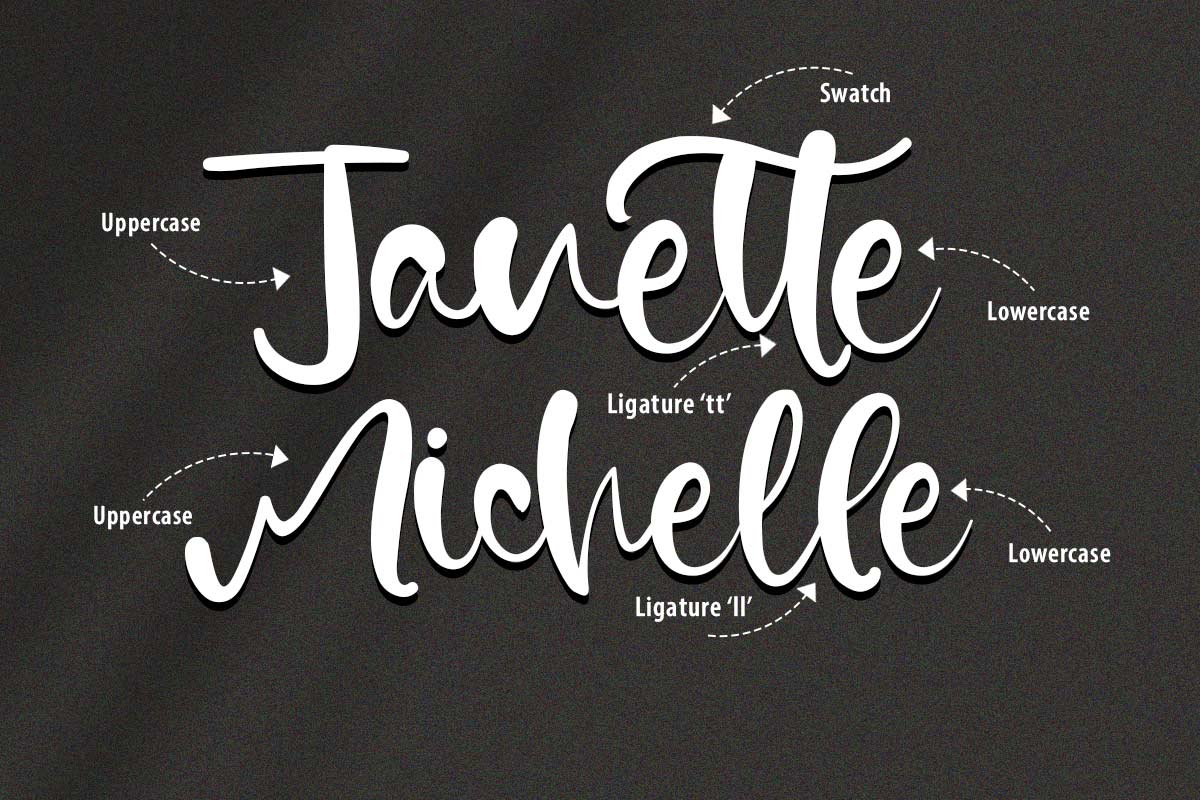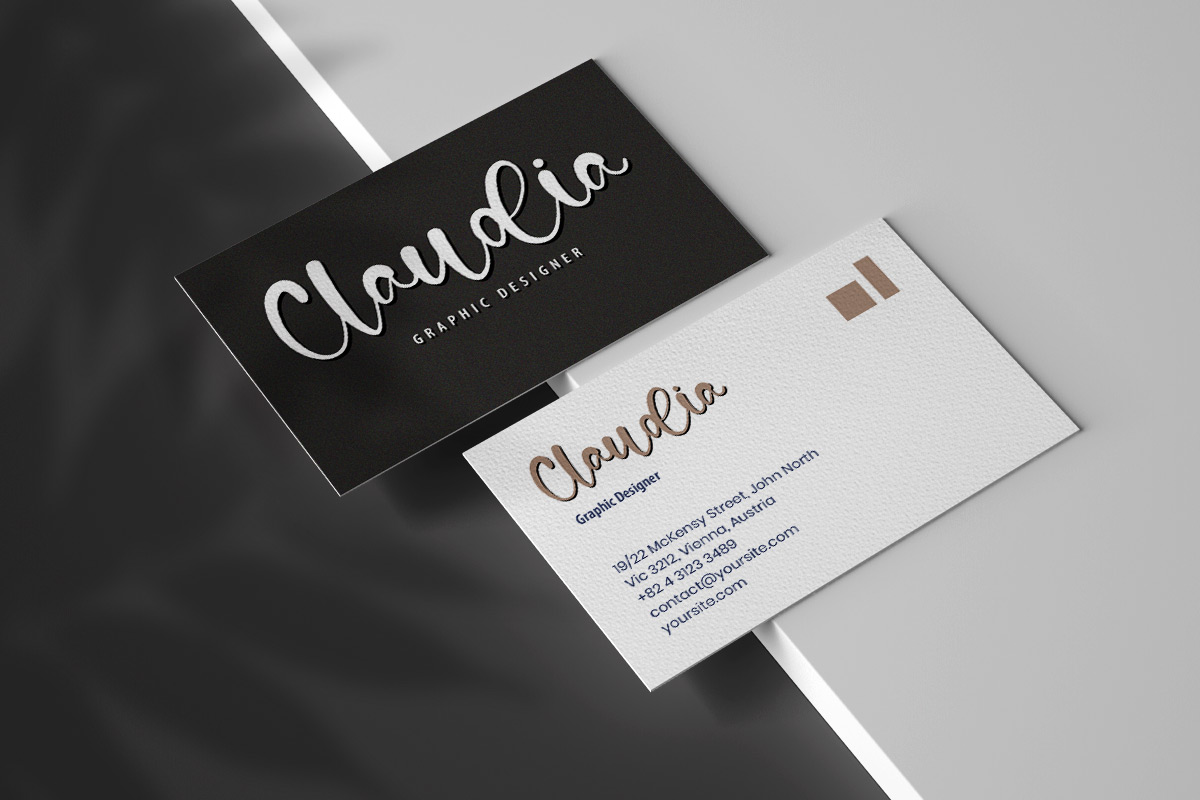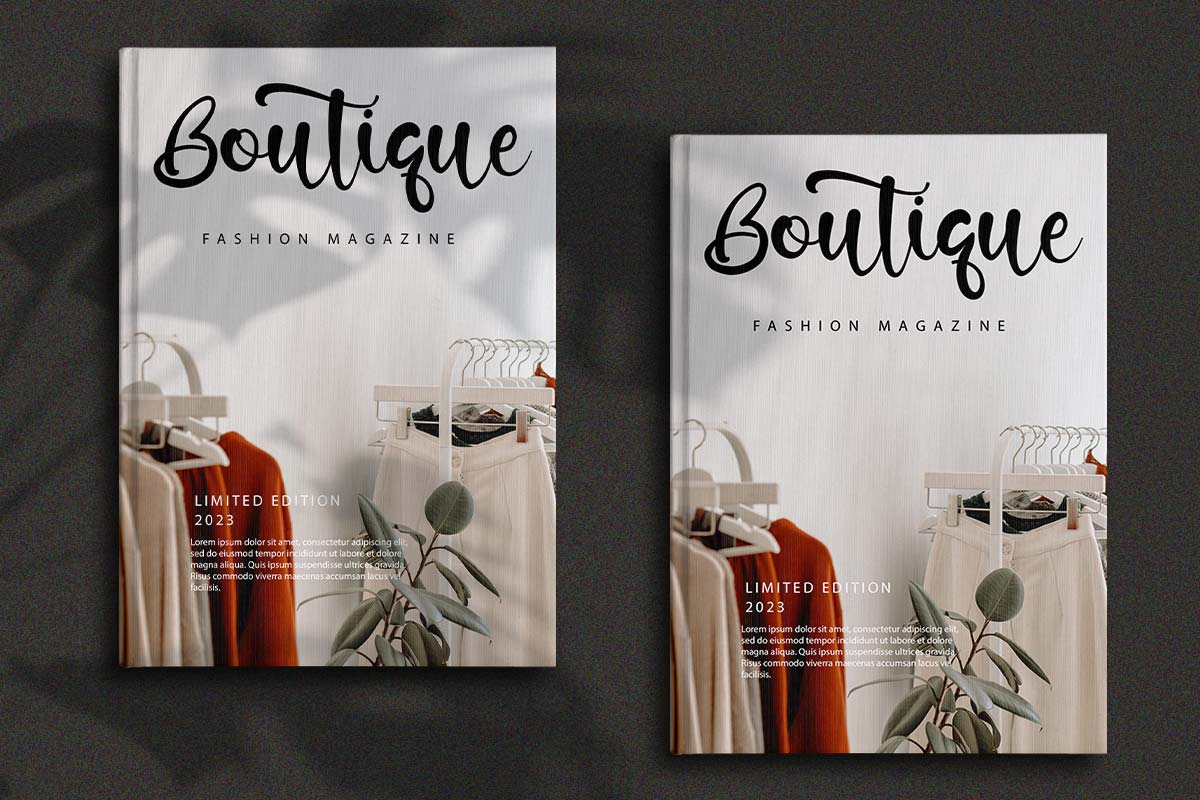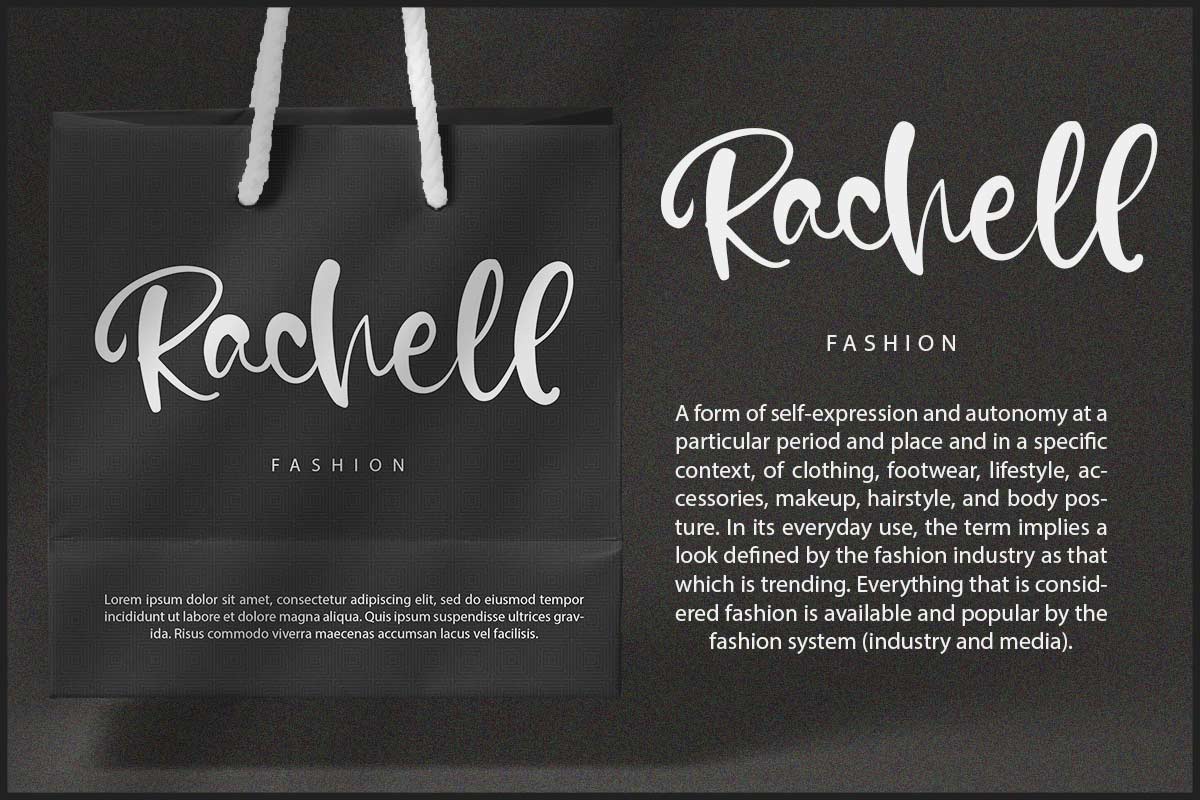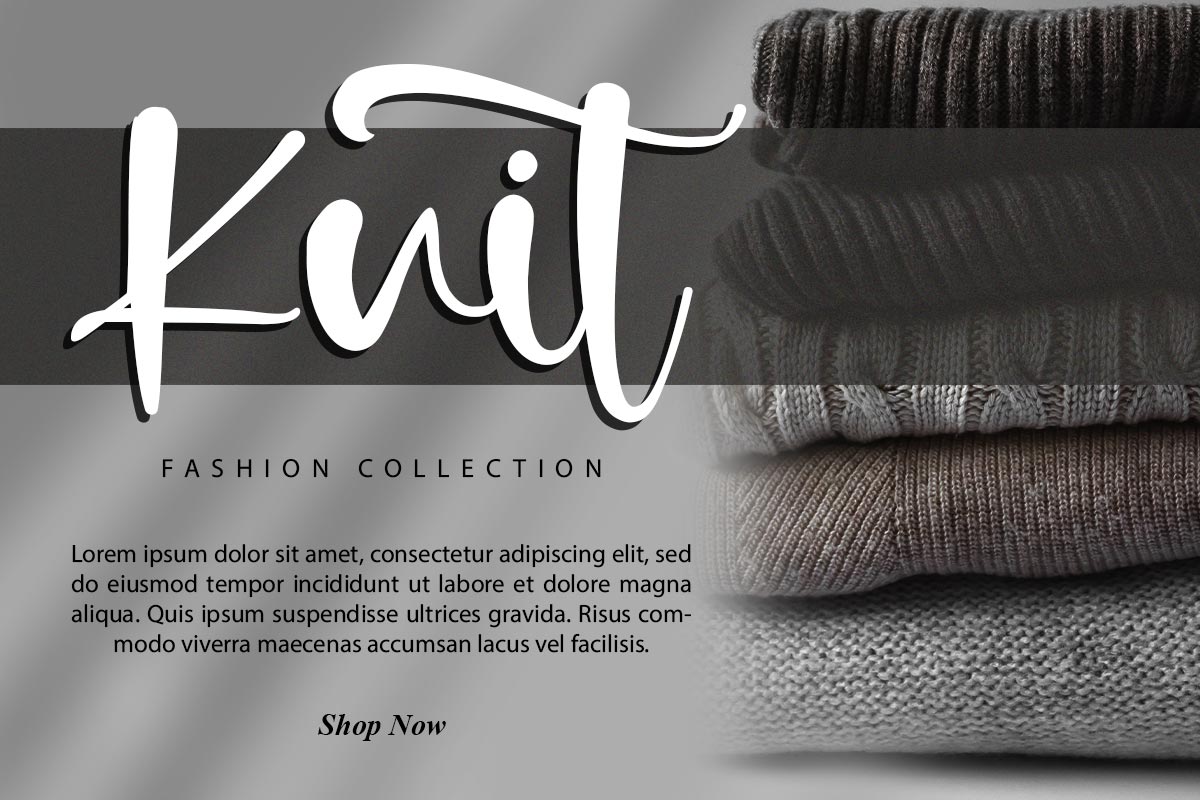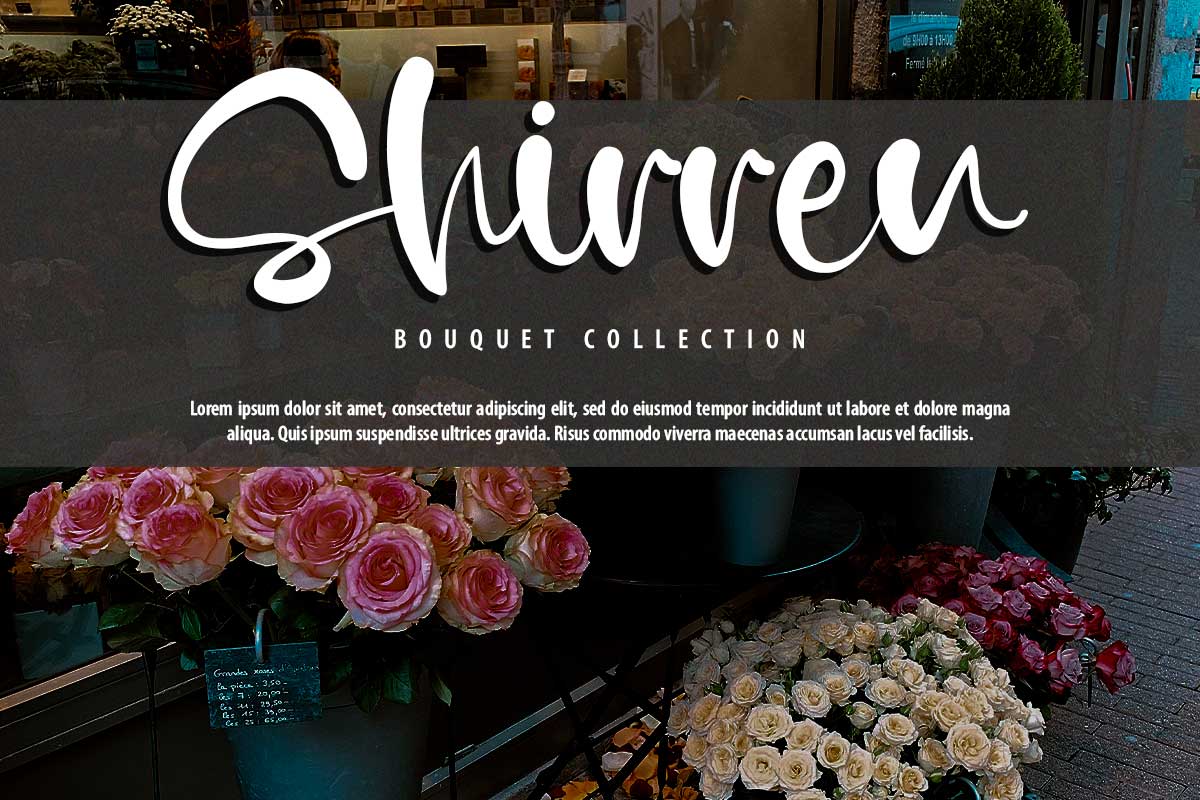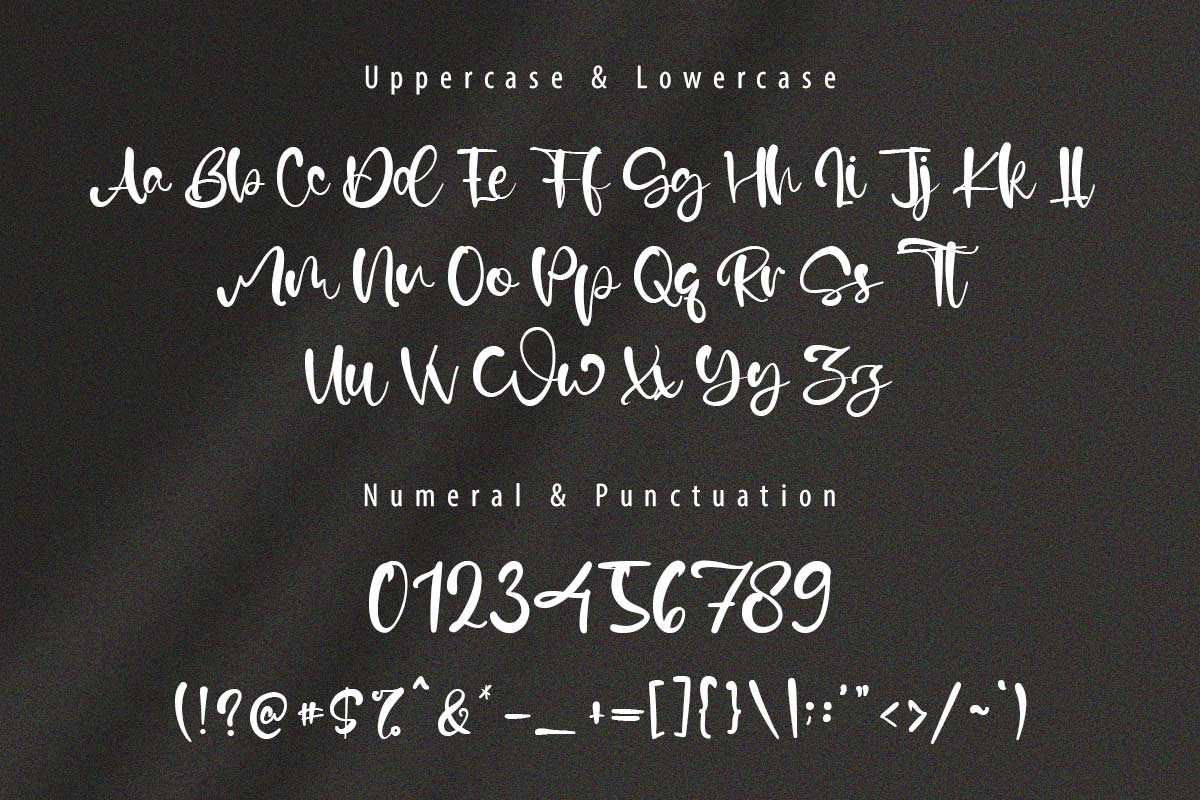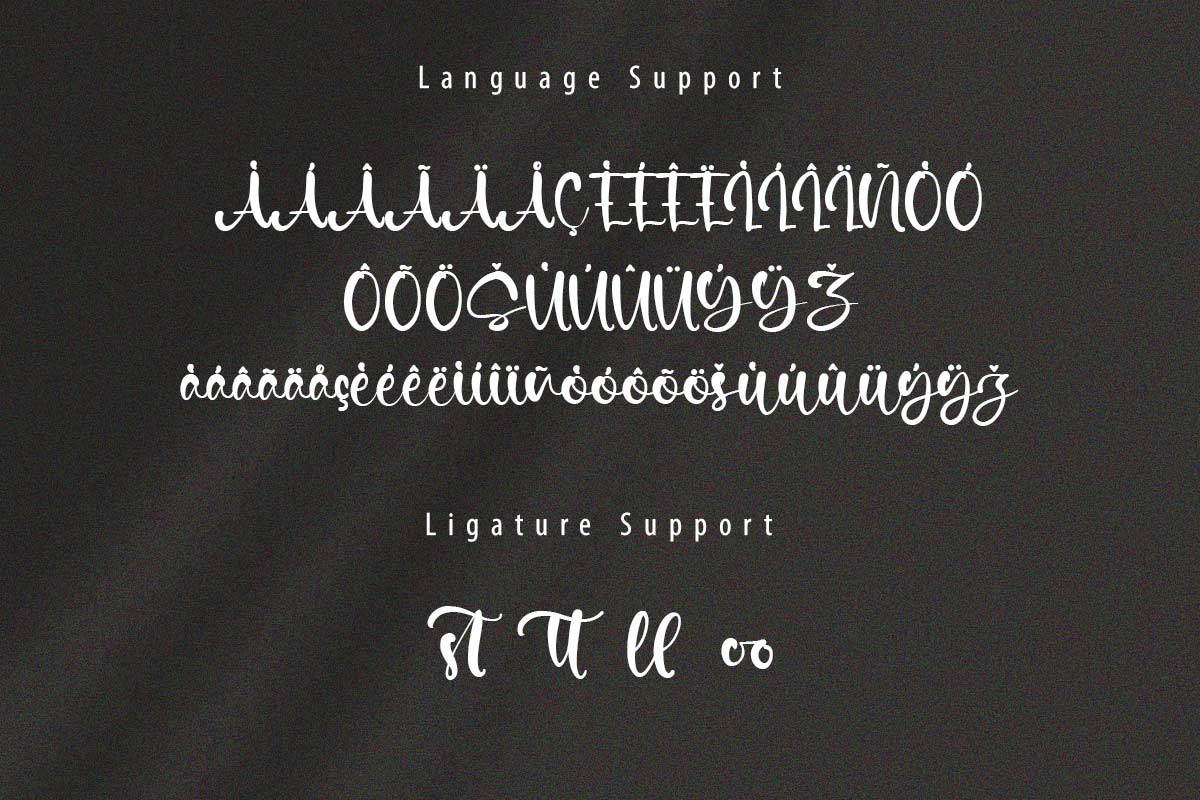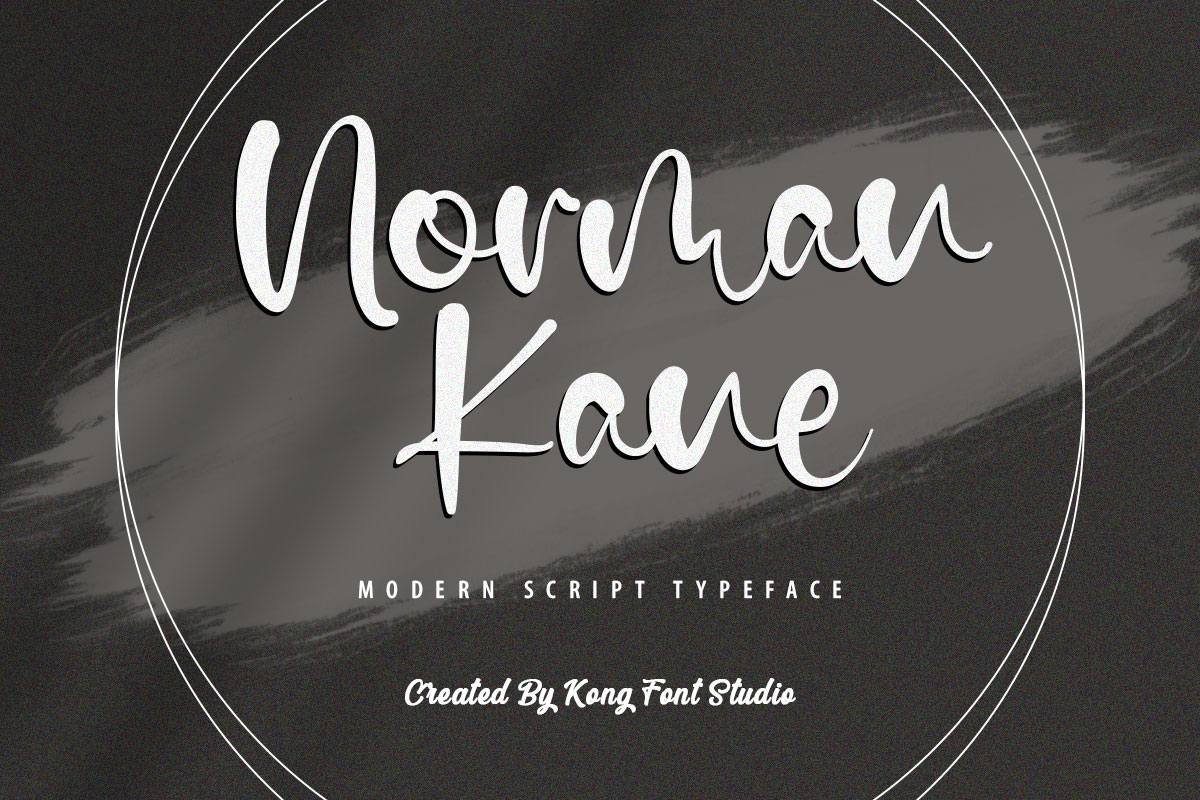
Norman Kane Font Script and Signature fonts have a lot of fans. Norman Kane Modern Script Font is one of the cool fonts with a beautiful appearance and many uses. This font is the right choice if you are looking for digital fonts or print fonts. You can see how the characteristics of this simple and charismatic font are very adorable to the eyes of anyone who reads it. Norman Kane Modern Script Font is one of those aesthetic fonts formed from light brush strokes. This font is created with simple curves in some of the letters. On closer inspection, this font looks like a shadow that has a bold edge at the end of the font shape. The explanation of the characteristics of the Norman Kane Modern Script Font above shows how this font is perfect for formal events that emphasize beauty. This font is the best wedding font that can use for invitations, souvenirs, and writing on decorations. Norman Kane Modern Script Font is also one of the most suitable fonts to use for product brands such as fashion, beauty products, food, and shop signs. This font can use for the formal event such as Christmas celebrations, birthday parties, weddings, etc. Norman Kane Modern Script Font can be used to promote a hotel or a beauty spa. This font can use as a digital font or a print font. Norman Kane Modern Script Font is an eligible font. This font is built with simplicity, elegance, and a strong aesthetic in everything that goes with it. This impression arises from how beautiful this font looks and its characteristics. Our script fonts collection is compatible to use as Figma fonts, Canva fonts, Freepik Fonts, and Adobe Fonts. They also work as Windows Fonts and Apple Fonts. For your social media needs, you can use and install fonts in our brush typography collection to use as Instagram Fonts, Facebook Fonts, and Twitter Fonts.